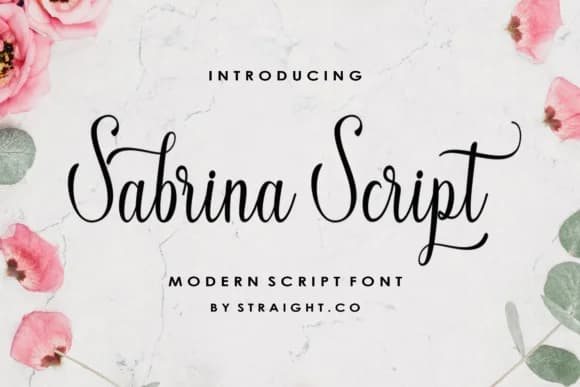
Sabrina Script Font by STRAIGHT.CO is a contemporary cursive typeface that brings sophistication to handwritten letterforms. The design balances flowing curves with refined characters, making it work across both digital and print projects. What distinguishes Sabrina is its character system that lets you switch between standard and swashed letter variations, giving you flexibility to control the level of ornamentation in any design. This means a single font can deliver understated elegance or more decorative styling depending on your needs. The handwritten quality makes Sabrina particularly effective for projects requiring personal warmth without compromising professionalism. Wedding invitation suites benefit from the swashed alternates' romantic feel, while artisan product labels and boutique packaging gain polish from its refined letterforms. Event signage, stationery design, and lifestyle brand logos all showcase Sabrina's balanced sophistication. Designers also find it works beautifully for greeting card layouts and social media graphics where human warmth matters. With multiple letterform options built into the font file, Sabrina gives you real creative control without needing multiple typeface variations. Whether crafting minimalist brand identities or ornamental event designs, the ability to toggle between letter styles keeps your options open within a single family. Experience how Sabrina Script can enhance your next creative project, find it on Creative Fabrica.
Sabrina Script Font is a script font that shines as a display or heading face. Pair it with a clean sans-serif or serif font for body text β the contrast creates a clear hierarchy while the two styles stay balanced and easy to read.
Sabrina Script Font
by STRAIGHT.CO